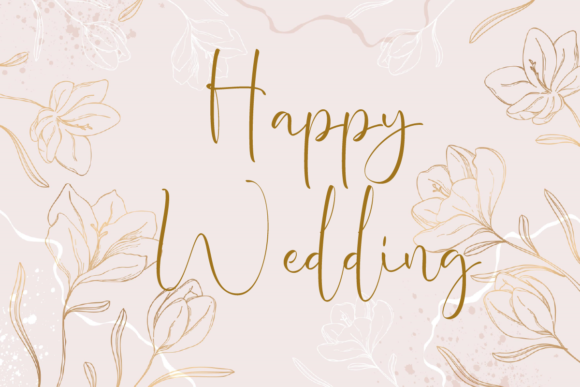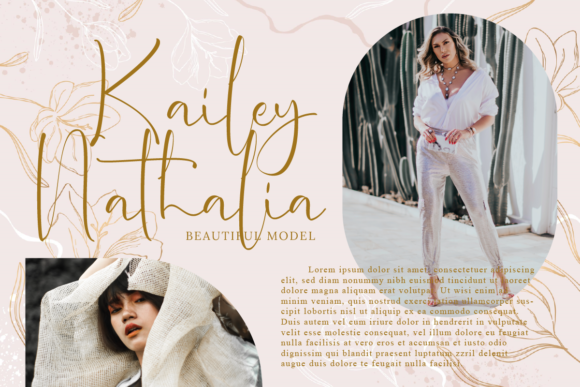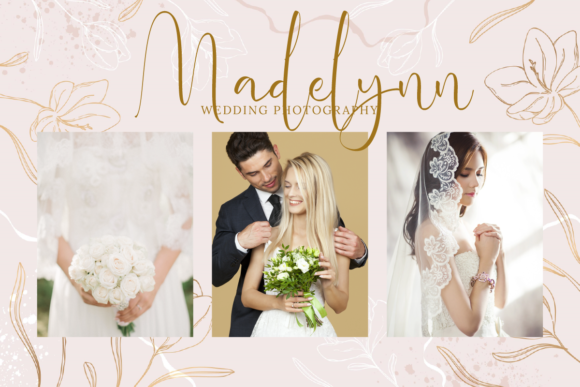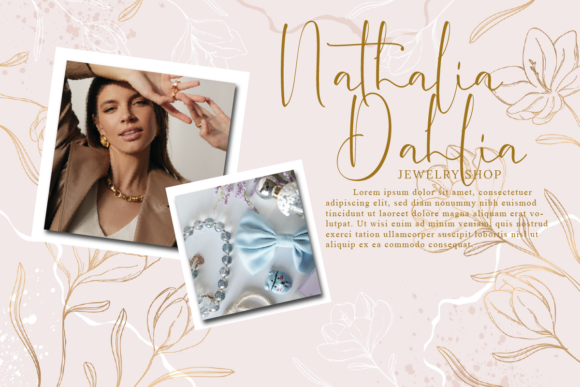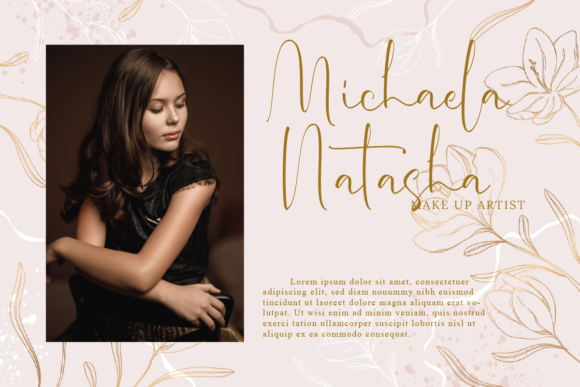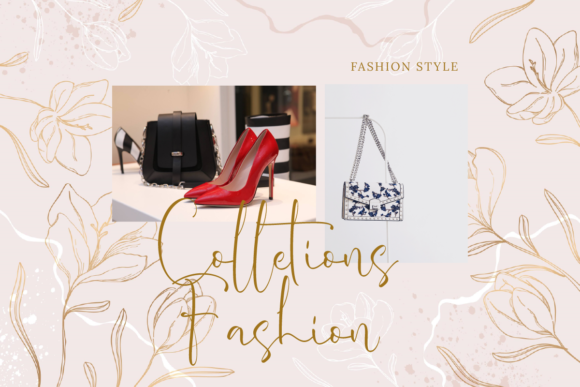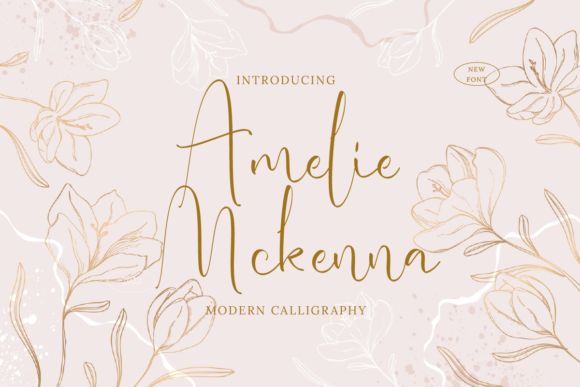
The Amelie Mckenna Font: A Handwritten Gem for Creative Projects
I’ll never forget the moment I stumbled upon the Amelie Mckenna font while working on a wedding invitation design project. My client had a very specific vision – a beautiful, handwritten font that would make her special day feel even more personal and unique. As I scoured the internet for the perfect font, I came across Amelie Mckenna, and it was love at first sight! ✨
The elegant, cursive letters seemed to dance across my screen, and I knew immediately that this was the font I had been searching for. In this article, I’ll share my experience with the Amelie Mckenna font, its features, and how to make the most of it in your creative projects.
An Honest Review of Amelie Mckenna Font
- 💕 Perfect for adding a personal touch to wall displays, wedding invitations, social media post logos, advertisements, product packaging, and more.
- ✨ Elegant, cursive letters with a unique and stylish feel.
- ✅ Highly versatile and suitable for a wide range of creative projects.
- 🎨 Great for designs that require a handwritten taste.
While Amelie Mckenna is an amazing font, there are a few things to keep in mind: 🤔
- ⚠️ Some letters may not be suitable for body text due to their cursive nature.
- ⚠️ May require adjustments for optimal spacing and readability.
The Story Behind Amelie Mckenna Font
The Amelie Mckenna font was designed with love and care by a talented typographer who wanted to create a unique and elegant handwritten font. Inspired by classic calligraphy and modern script fonts, Amelie Mckenna is the perfect blend of traditional and contemporary design.
Q: What is the Amelie Mckenna font best used for?
A: The Amelie Mckenna font is perfect for wall displays, wedding invitations, social media post logos, advertisements, product packaging, product designs, labels, photography, watermarks, invitations, stationery, and any project that requires a handwritten taste.
Q: Is the Amelie Mckenna font suitable for body text?
A: While Amelie Mckenna is a beautiful font, it may not be the best choice for body text due to its cursive nature. However, it can be used for short paragraphs or headings.